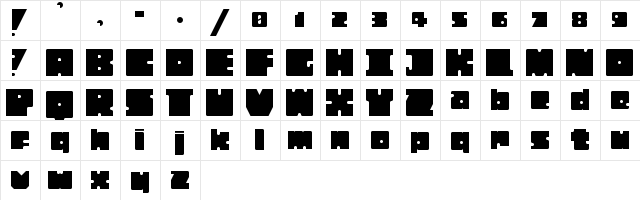
JS lump Regular
Design Context for JS lump Typeface
JS lump is a composed and adaptable typeface that performs quietly and consistently across a wide range of design contexts.